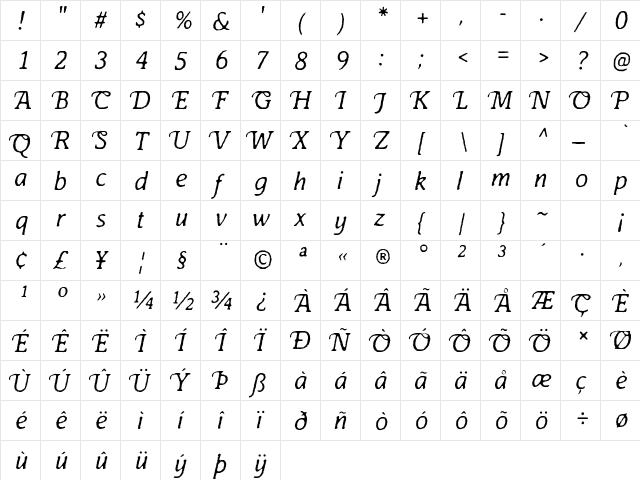
Antihistory Italic
Design Context for Antihistory Typeface
Antihistory takes a measured approach to typography — its balanced proportions and neutral character make it a reliable workhorse for both digital and print work. Its italic angle brings a sense of urgency and motion to the letterforms.
Pro Tip: Use Antihistory for emphasis, pull quotes, and subheadings where its slanted energy can add rhythm to the layout.